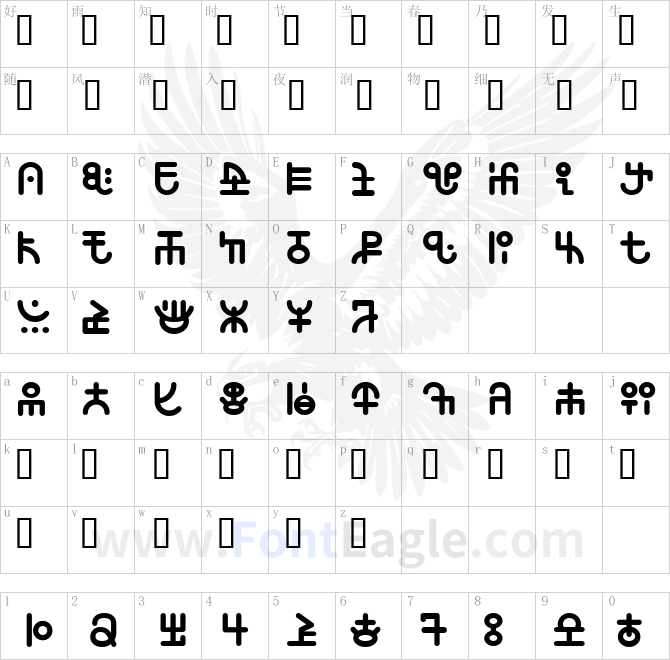
- Font name:12 to the Moon
- Font Copyright:12 to the Moon computer font v1.0 ©2000 Harold Lohner • HLohner@aol.com • http://members.aol.com/fontner Based on the message from the Moon in the Columbia Pictures movie “12 to the Moon”.